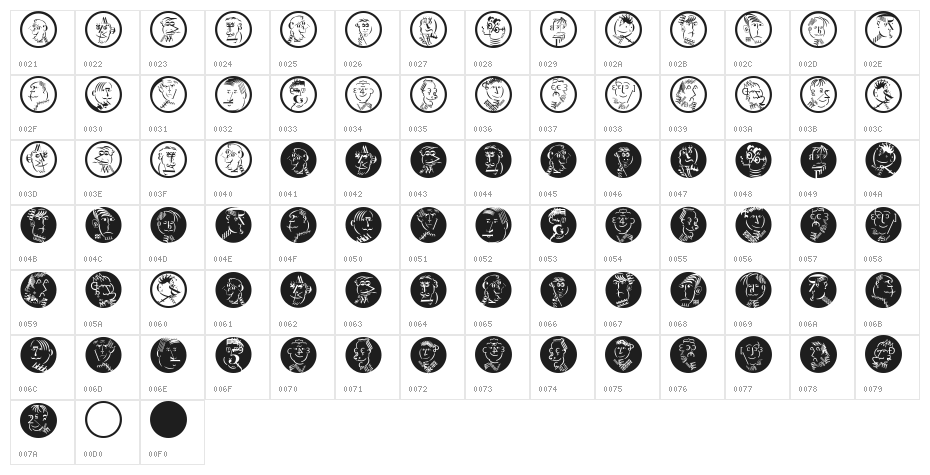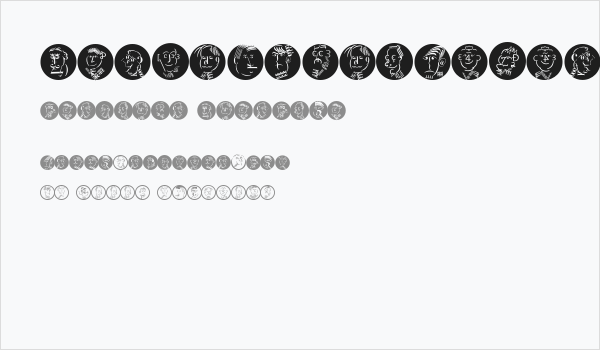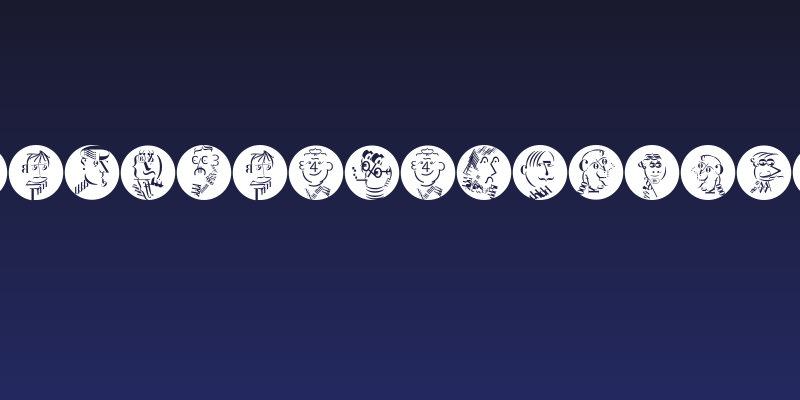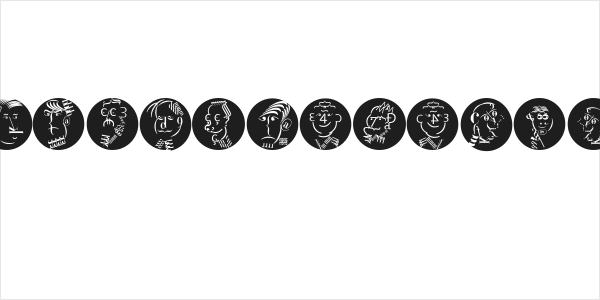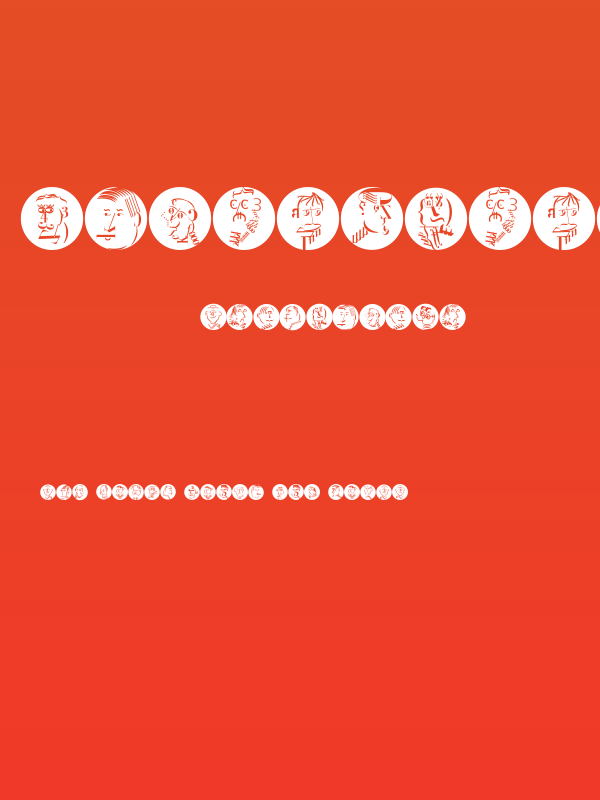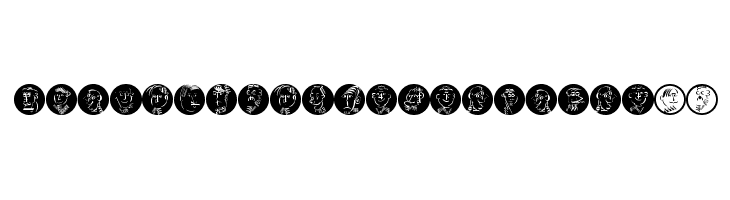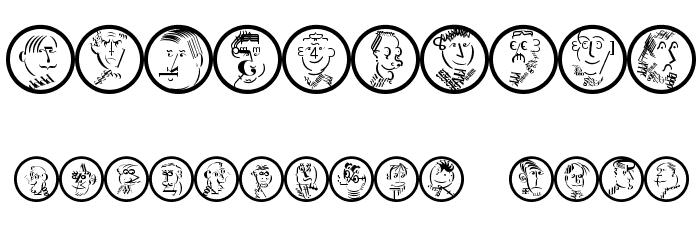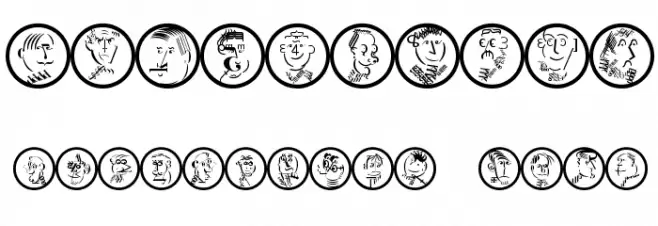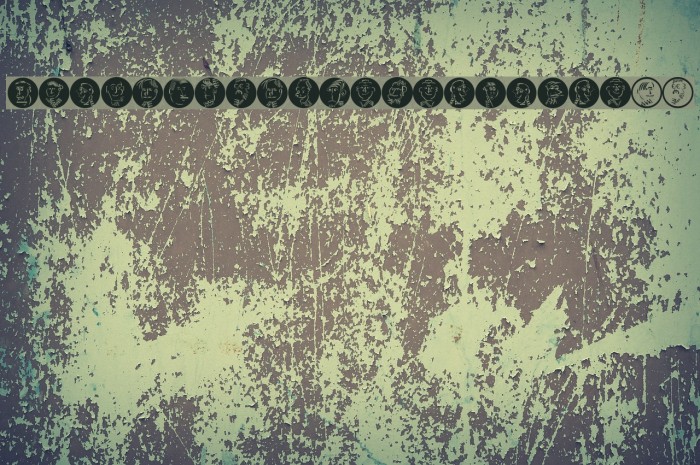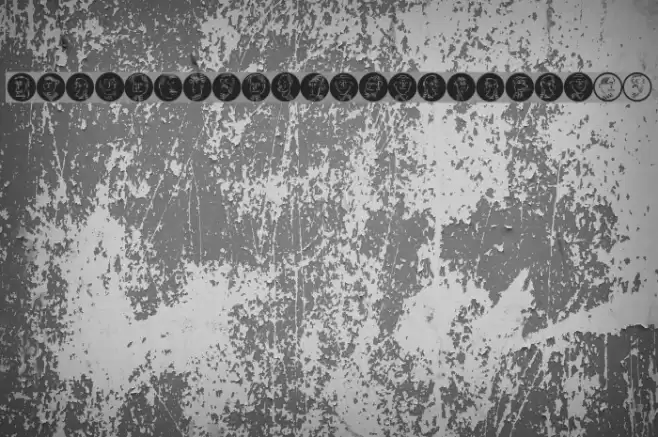
DrawingWithTypefaces07 Font
| Gesamtstil | Decorative, Artistic, Playful |
| Anwendungsfall | Logos, Posters, Illustrative Headlines, Artistic Projects |
| Vorgeschlagene Projekte | Children’s books, creative branding, art posters, album covers, editorial illustrations, event invitations. |